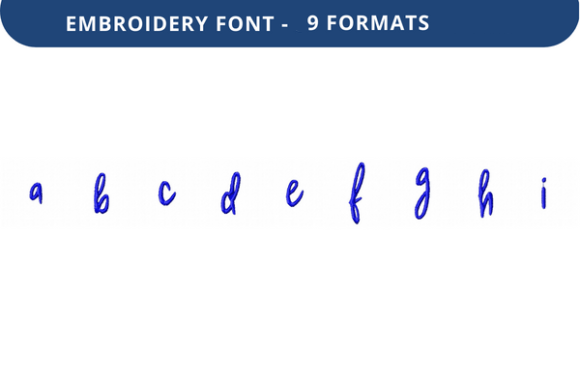
Under Secretary Font Lowercase a to I: A Versatile Tool for Creative Embroidery
Embroidery has long been a cherished craft, blending artistry with functionality. In today’s fast-paced world, where personalization is key, the right font can make all the difference. Enter Under Secretary Font Lowercase a to I, a high-quality embroidery font designed to elevate your creative projects. Whether you're crafting custom gifts, branding products, or adding unique touches to everyday items, this font offers a blend of elegance and versatility that stands out in the world of textile design.
This particular font, known for its clean lines and distinct character shapes, is especially popular among those who value both aesthetics and practicality. Its lowercase a to i design allows for a wide range of applications, from personalized name tags to decorative elements on fabric. The simplicity of the design makes it adaptable to various styles, ensuring that it fits seamlessly into both traditional and modern embroidery projects.
Under Secretary Font Lowercase a to I aligns perfectly with this movement. Its ability to be used across multiple formats and machines makes it a go-to choice for designers looking to add a personal touch without compromising on quality. From small businesses to independent creators, the font's adaptability ensures that it remains relevant in a rapidly evolving market.
Why This Font Stands Out in the World of Embroidery
What sets Under Secretary Font Lowercase a to I apart is its balance between classic design and modern usability. Unlike some fonts that may feel outdated or overly stylized, this one maintains a timeless appeal while offering enough variation to suit different creative needs.
Practical Applications for Creators and Businesses
For creators and small business owners, Under Secretary Font Lowercase a to I offers more than just aesthetic value—it provides a practical solution for personalizing products. From custom apparel to home décor, the font can be used to add names, dates, quotes, or even short messages to fabric.
Consider a local boutique that sells handmade greeting cards. By incorporating this font into their designs, they can create a consistent brand identity while also offering customers a more personal experience. Similarly, a freelance designer working on a client project can use the font to add a unique signature or logo that reflects the client’s personality.
For businesses looking to enhance their branding efforts, the font can be a powerful tool. Custom embroidered logos, product tags, and promotional materials can all benefit from the clarity and elegance of Under Secretary Font Lowercase a to I. Its versatility makes it ideal for both large-scale production and small-batch customization.
As the demand for personalized and customized items continues to grow, having access to high-quality embroidery fonts like this one becomes increasingly valuable. Whether you're a seasoned designer or just starting out, Under Secretary Font Lowercase a to I is a worthwhile addition to your creative arsenal. With its wide range of applications and compatibility with multiple formats and machines, it’s a font that truly stands the test of time.